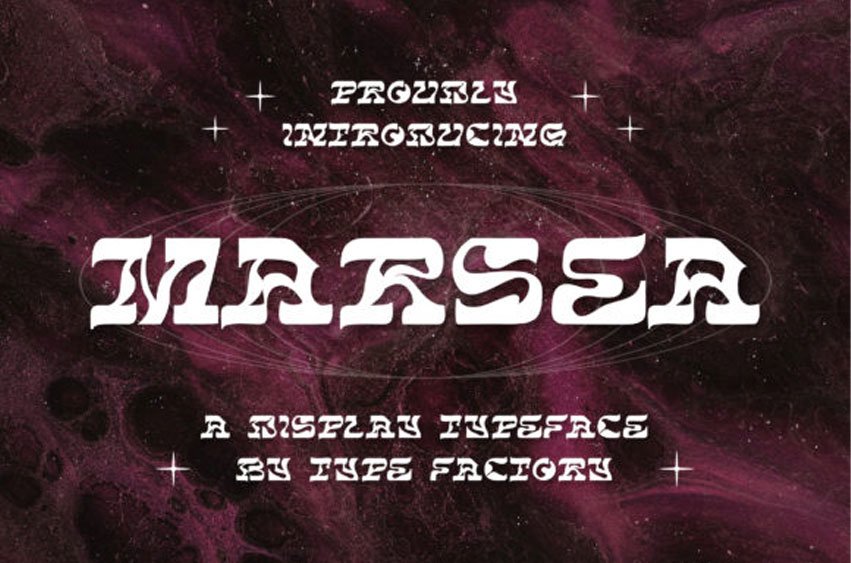
Marsea Font is a cool, thick lettered and wavy display font.
Featuring a strong visual effect, this font will instantly make your creation more appealing than any others.